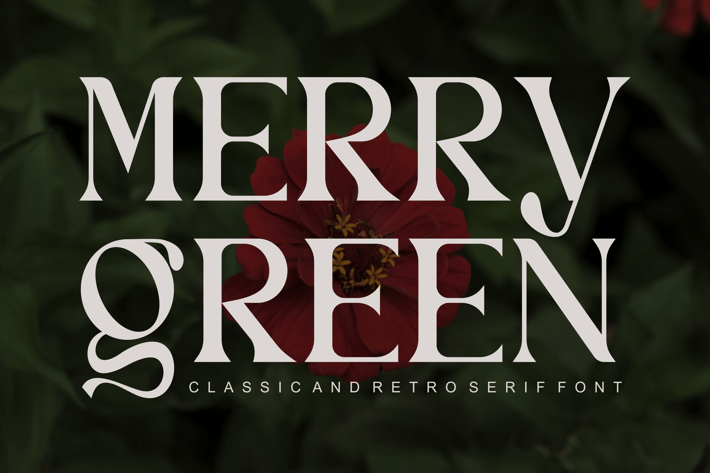
Merry Green - Classic And Retro Serif Font
Introducing our new product Merry Green Classic And Retro Serif Font
Merry Green Classic And Retro Serif Font is a bold and authentic display font. The font is suitable for any branding project like logo, t-shirt printing, esport, and many more.
outstanding in a wide range of contexts.
Merry Green Uppercase
* Merry Green Lowercase